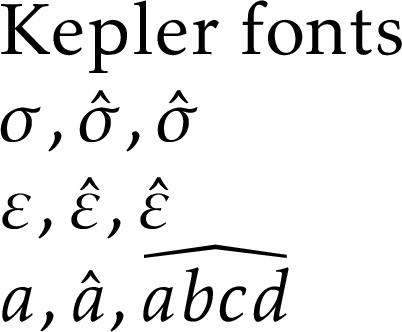
I use the Kepler font in my document. It's a very good font for math but it has an issue typesetting the \hat and \widehat commands: the \hat command produces a very small hat and \widehat produces a hat that is too wide.
Is there a way to adjust the \hat and \widehat size?
Here's my MWE. The attached image displays the output.
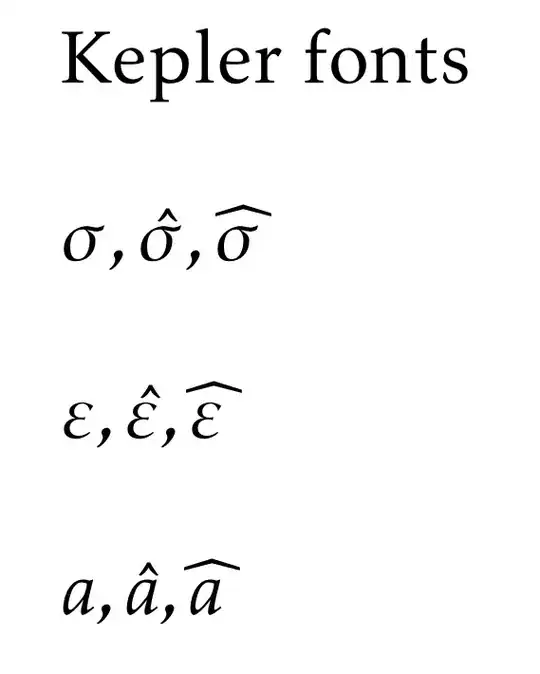
kpfonts hats
Why are you including stix2 before kpfonts? More to the point, why are you including amssymb after? That seems like it would, at best, have no effect, and at worst mess things up. – Davislor Apr 23 '22 at 01:13
• This seems like a font issue to me. The hat doesn't look to narrow, it just is in the wrong place. You could try contacting the package maintainer to see if they will fix it. – schtandard Apr 23 '22 at 07:18
Just slightly modifying my answer at Really wide hat symbol, \reallywidehat will adjust to the width of the argument.
Great solution! While you’re editing the MWE, you might remove textcomp (now part of the kernel) and amssymb (which kpfonts loads automatically). Although both are harmless, just unnecessary on a recent distro.. – Davislor Apr 23 '22 at 14:43
If you can use LuaLaTeX or XeLaTeX, you can use the OTF version of the Kepler fonts, which you might prefer here.
Kepler Fonts sample
If you need to replace symbols from a different OpenType font, there is a standard syntax for that in unicode-math, e.g.:
It is possible to get only one accent from a math symbol package in legacy 8-bit LaTeX. Every 8-bit package is different, though. There is no standard way to do it.